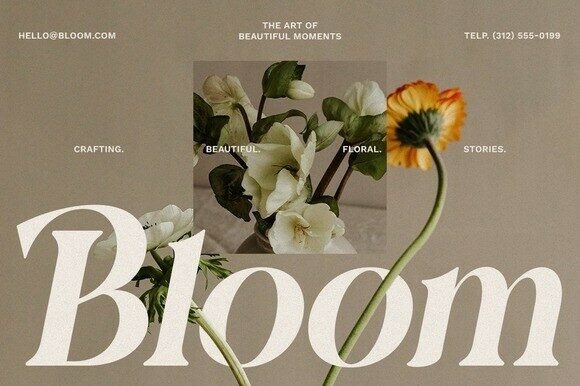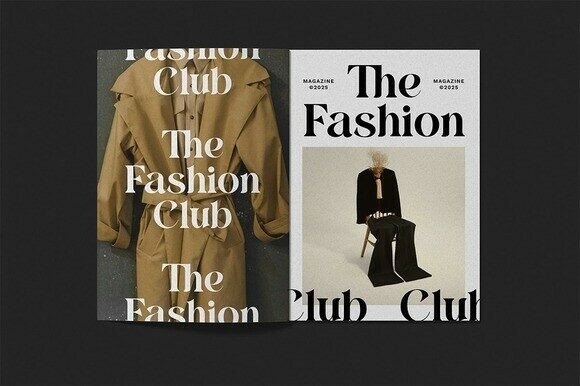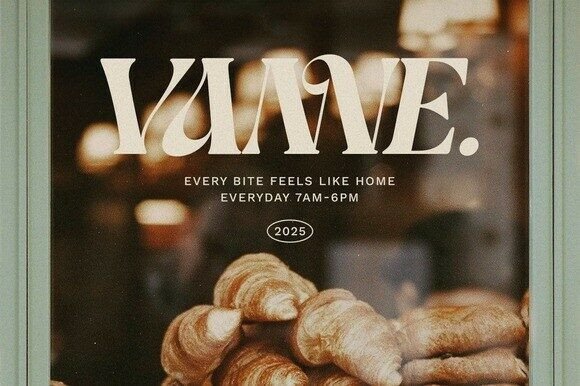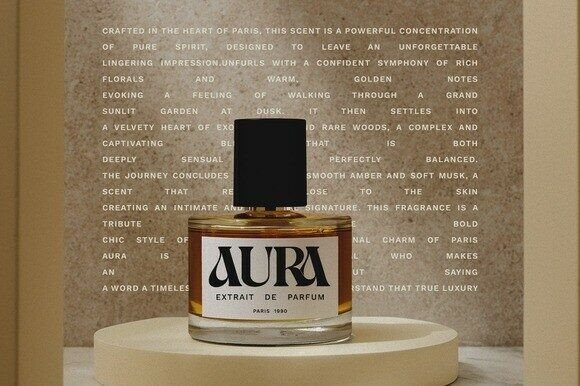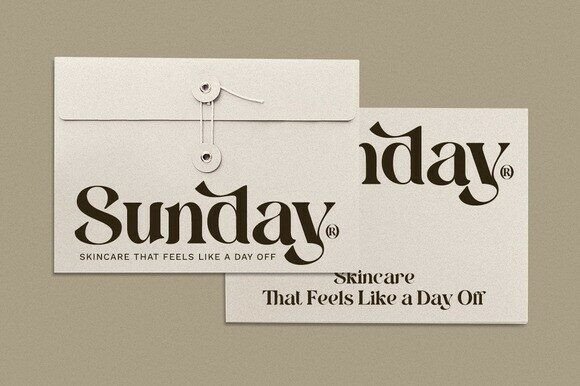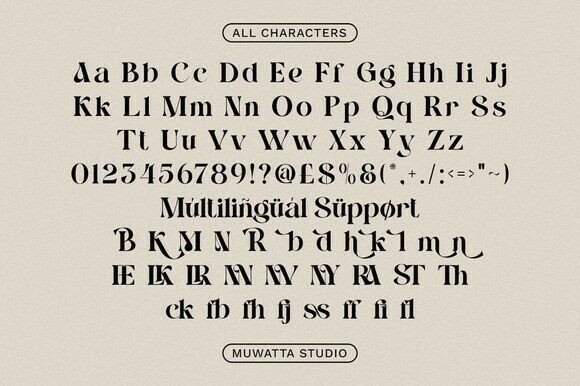
Introducing Assneya Font: Elevate Your Brand with Modern Luxury
In the world of typography, few fonts manage to strike a balance between bold statements and fluid elegance. Assneya Font is a masterclass in modern luxury, offering a seamless experience that is both bold and incredibly fluid. This exquisite typeface is designed to bring a touch of high-end sophistication to premium lifestyle branding, skincare packaging, and minimalist logo design.
The Art of Assneya: A Blend of Structure and Fluidity
The Assneya font features breathtaking ligatures and unique, flowing connectors that blur the line between a structured serif and a high-fashion script. This distinctive blend of styles creates a truly bespoke look that is both eye-catching and refined. With Assneya, you can add a touch of elegance to your brand’s visual identity, setting it apart from the competition.
Crafted for Premium Branding
Assneya is specifically designed for the world of premium lifestyle branding, skincare packaging, and minimalist logo design. Its rhythmic and organic flow brings a sense of calm and high-tier quality to any layout, making it perfect for brands that want to convey luxury and sophistication. Whether you’re creating a logo, packaging, or marketing materials, Assneya is the perfect choice.
Key Features of Assneya Font
- Breathtaking Ligatures: Assneya features stunning ligatures that add a touch of elegance to your text.
- Unique Flowing Connectors: The font’s flowing connectors create a seamless experience that is both bold and fluid.
- PUA Encoding: With PUA encoding included, all special characters and decorative elements are easily accessible without additional software.
- Regular and Italic Styles: Use the regular or italic style to create a bespoke look that suits your brand’s needs.
Elevate Your Brand’s Perceived Value
The Assneya typeface provides a bespoke, “tailor-made” look that instantly increases the perceived value of your brand. Its high-end aesthetic and fluid elegance make it perfect for brands that want to convey luxury and sophistication. By using Assneya, you can:
- Create a lasting impression with your target audience
- Stand out in a crowded market
- Convey a sense of high-end quality and sophistication
Assneya Font is perfect for designers and crafters who want to add a touch of luxury to their projects. With its ease of use and versatility, Assneya is ideal for:
- Branding and logo design
- Skincare packaging and labeling
- Marketing materials and advertising
- Web design and digital marketing
| Font Name | Assneya Font |
| Author | Muwatta Studio |
In conclusion, Assneya Font is a masterclass in modern luxury, offering a seamless experience that is both bold and incredibly fluid. With its breathtaking ligatures, unique flowing connectors, and PUA encoding, Assneya is the perfect choice for designers and crafters who want to elevate their brand’s visual identity. Whether you’re creating premium lifestyle branding, skincare packaging, or minimalist logo design, Assneya is the perfect font to bring a touch of high-end sophistication to your projects.